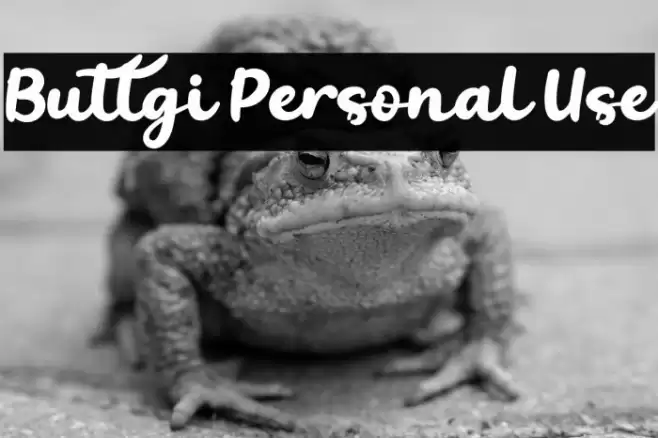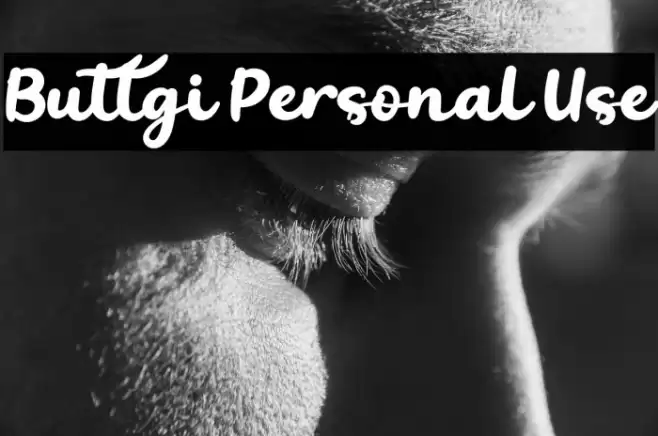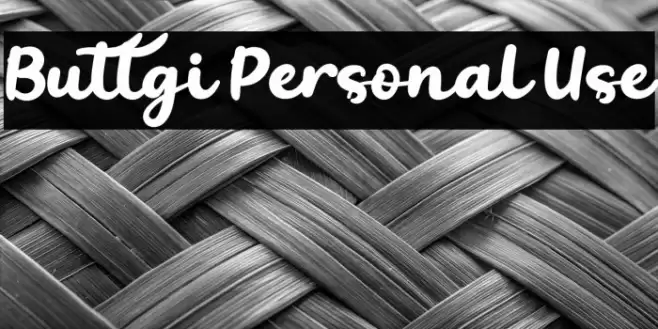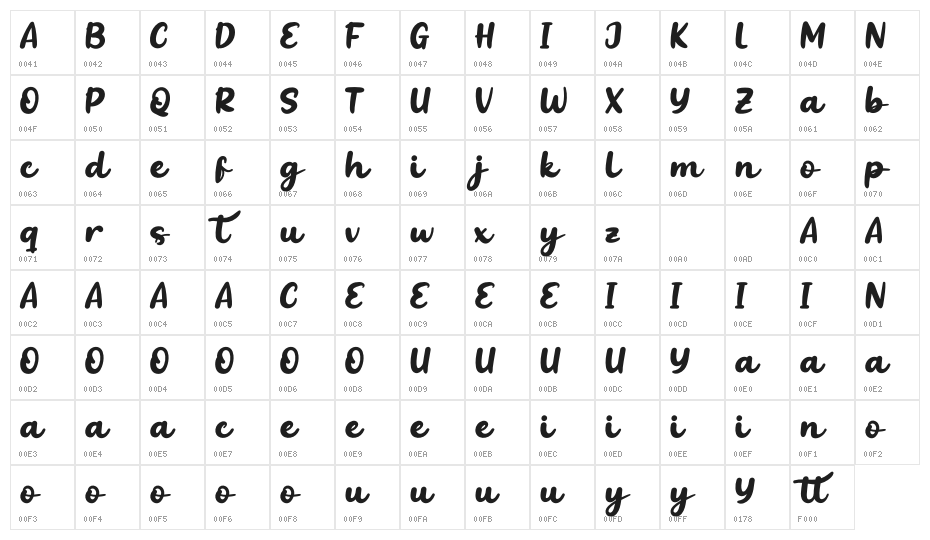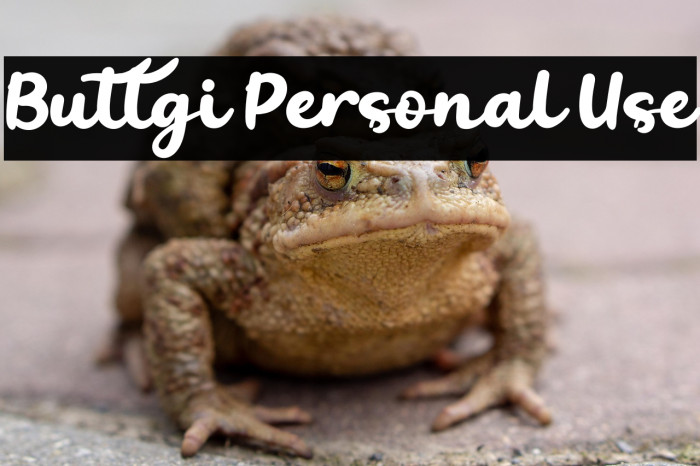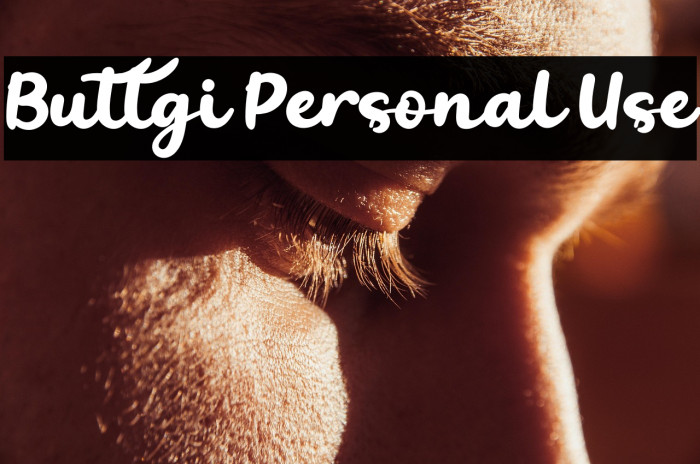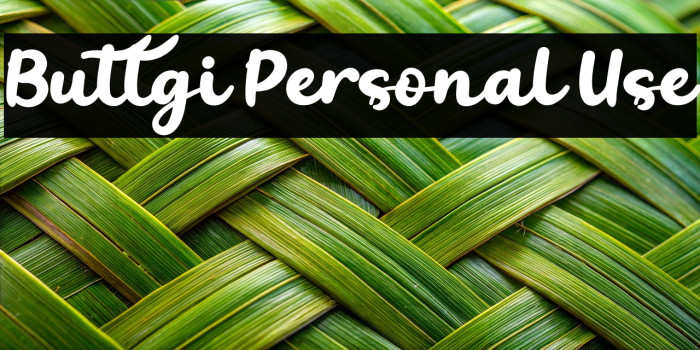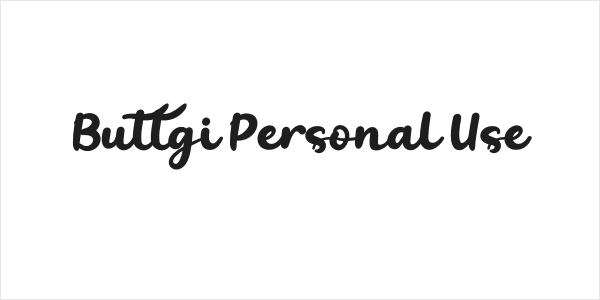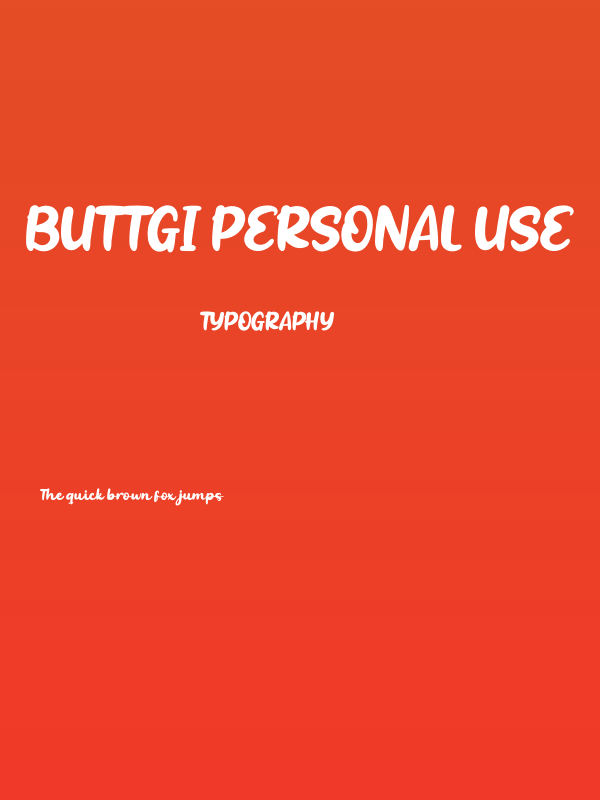
Buttgi Personal Use Font
Buttgi Personal Use Description
This font features a bold and expressive script style with a playful and energetic character. The uppercase letters are robust and slightly condensed, giving a strong presence, while the lowercase letters flow with a smooth, cursive elegance. The strokes are thick, providing a high contrast that enhances readability and visual impact. The overall design is dynamic, with a slight slant that adds to its lively appearance. This font is perfect for creative projects that require a personal touch, such as invitations, branding, and artistic designs.
A bold, expressive script font with high contrast and dynamic style from Uncategorized fonts.